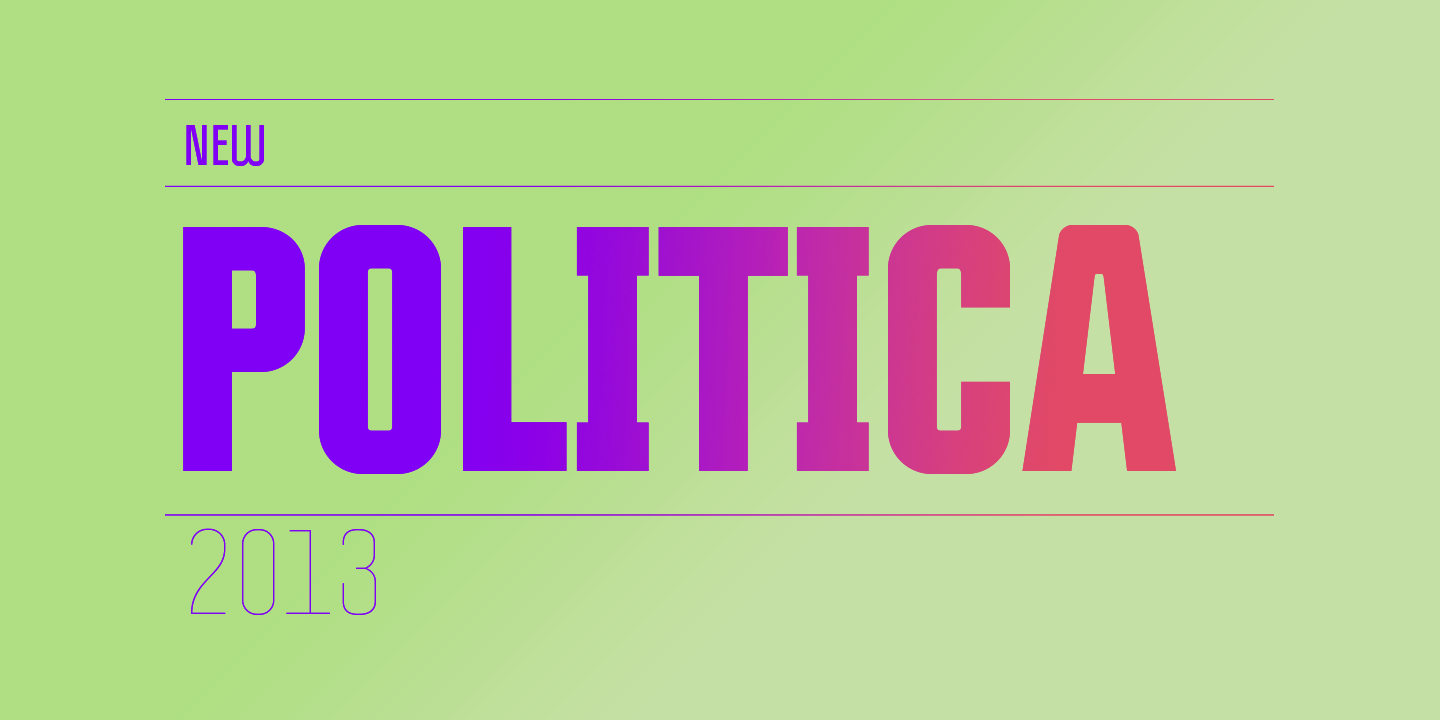
The Politica Font is a bold and authoritative sans-serif typeface, designed to convey strength, reliability, and a clear, unwavering message. Its robust forms, often with a slightly condensed or impactful structure, make it an excellent choice for political campaigns, news headlines, corporate communications, protest signage, documentaries with a strong narrative, and any design that demands attention and trust. Whether you’re crafting a powerful campaign slogan or a reliable news broadcast graphic, this font will imbue your project with a sense of conviction and undeniable presence.
What makes the Politica Font so exciting is its ability to instantly project confidence and a no-nonsense attitude. It's perfect for designers who want to convey solidity, efficiency, or a powerful, institutional aesthetic. This font stands out by offering a commanding yet highly legible appearance, making any text it graces feel monumental and significant. Its strong structure and clear lines ensure high readability even in challenging environments, making it ideal for headlines and prominent display text. The distinct character of the Politica Font ensures your design will leave a lasting and memorable impression.
The Politica Font typically offers a comprehensive family to support diverse design needs. While specific variations may depend on the font package, you can generally expect to find a range of weights such as Light, Regular, Medium, Bold, and Black, providing extensive options for hierarchy and emphasis. Many versions of the Politica Font Free Download also include corresponding Italic or Oblique styles for each weight, adding dynamic flexibility for emphasis and stylistic variation. Additionally, some premium packages might offer Condensed or Extended widths, various figure styles (e.g., lining, tabular), and potentially even alternate characters for specific glyphs, allowing for more nuanced and custom typographic solutions. This extensive family ensures that the Politica Font can be adapted to almost any design requirement, maintaining a consistent, powerful, and highly functional aesthetic throughout your project.